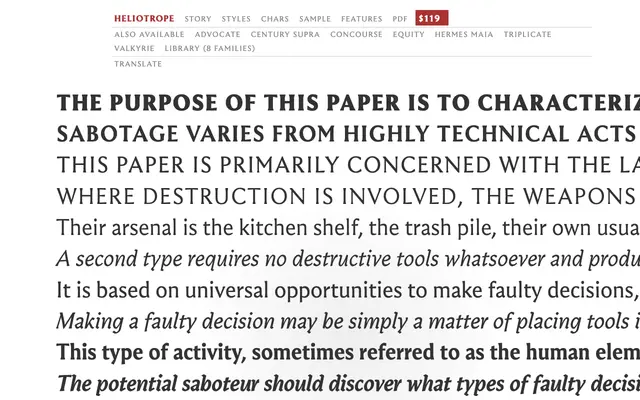
Heliotrope
MB Type · Matthew Butterick
A text serif from MB Type designed for long-form reading in digital and print environments.
A transitional-style text serif built for sustained reading, with proportions and spacing calibrated for body copy at small sizes. The sample text draws from an OSS field manual, suggesting a functional, no-nonsense design ethos. Part of MB Type's library of typefaces aimed at professional publishing and document typography.
Heliotrope presents characteristics consistent with a transitional serif: moderate contrast, bracketed serifs and a rational structure suited to extended text reading at small sizes.